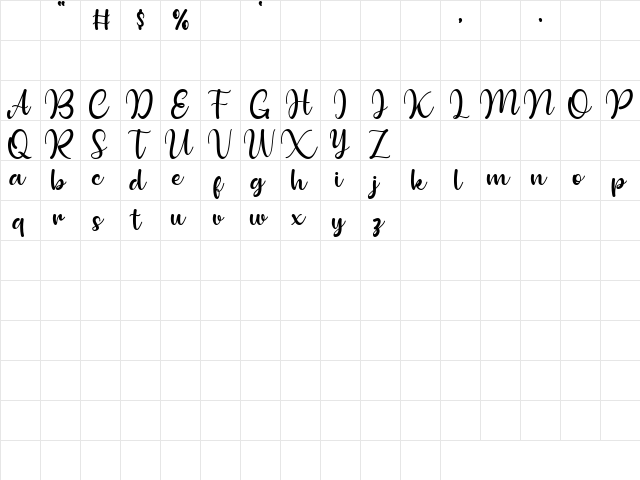
Bollinsh Hunt Personal Use Only Regular
| Designer | Muhammad Faizal Said |
Design Context for Bollinsh Hunt Personal Use Only Typeface
Bollinsh Hunt Personal Use Only is a composed and adaptable typeface that performs quietly and consistently across a wide range of design contexts.